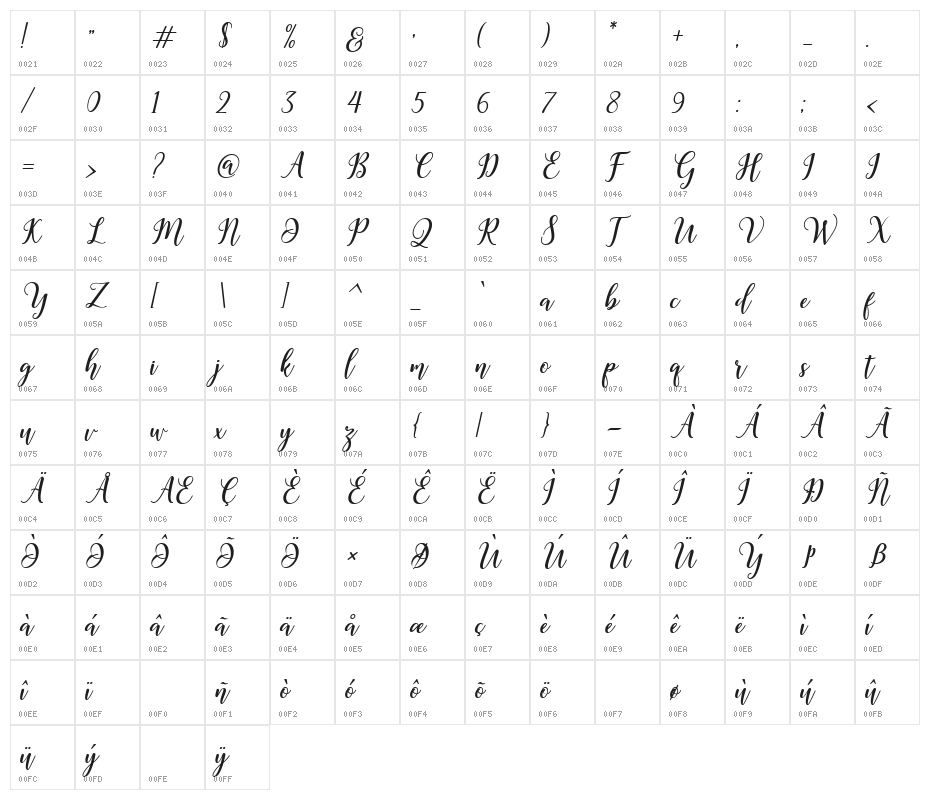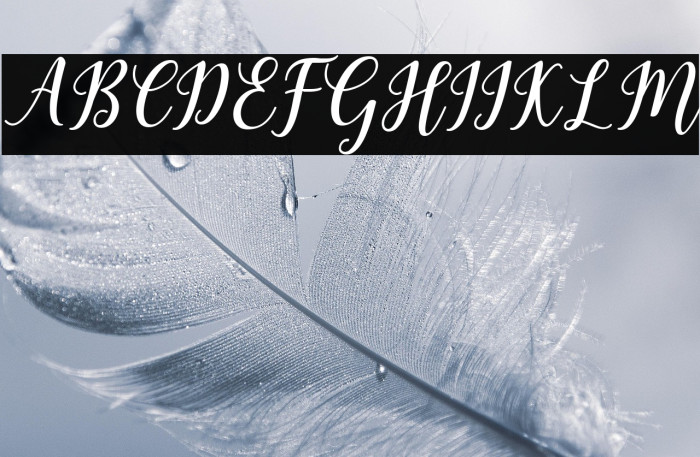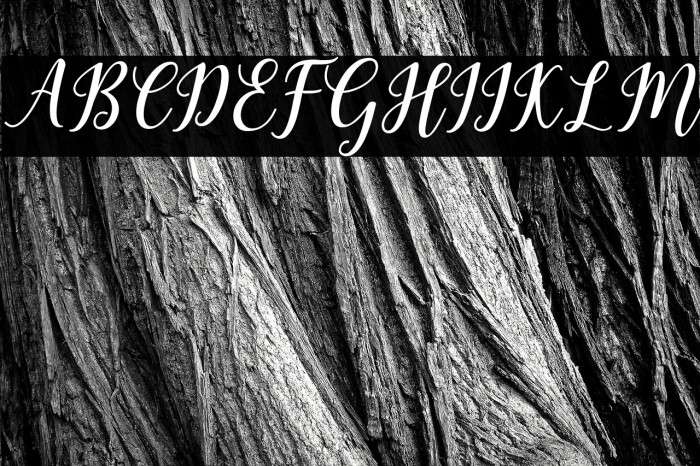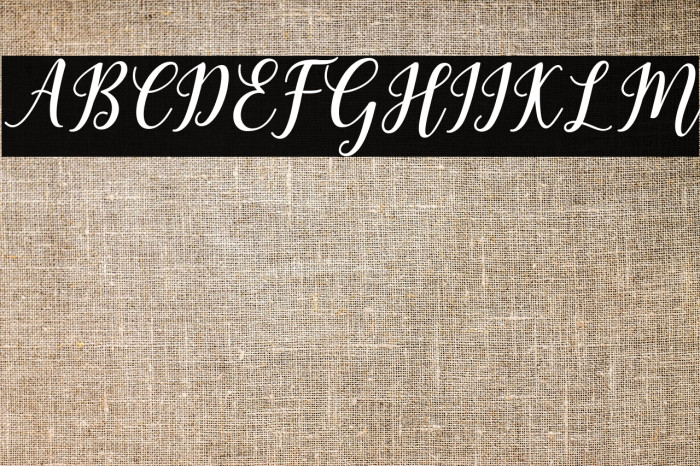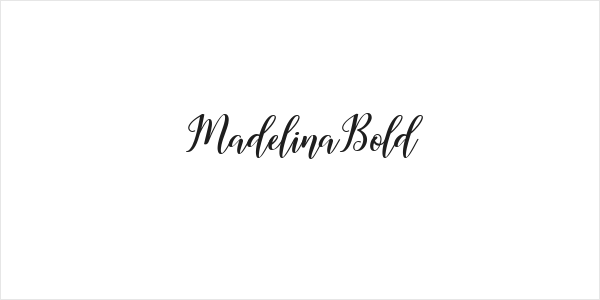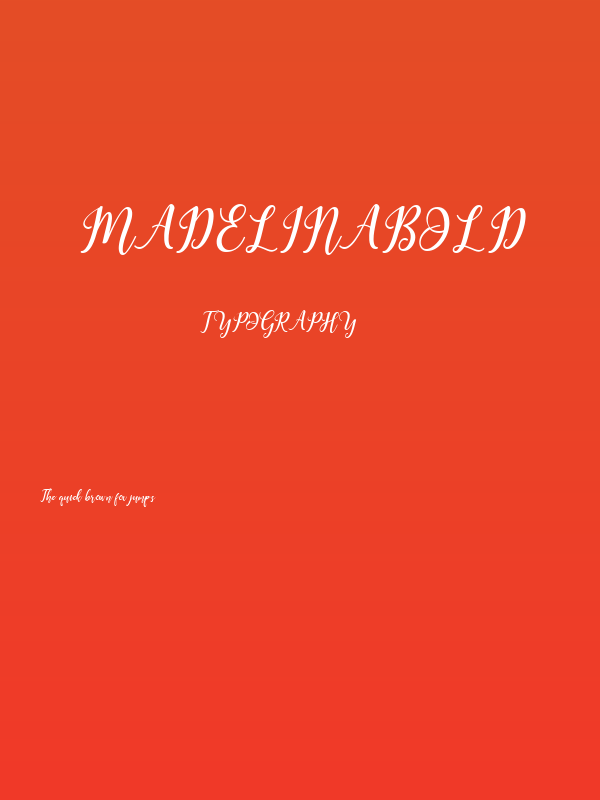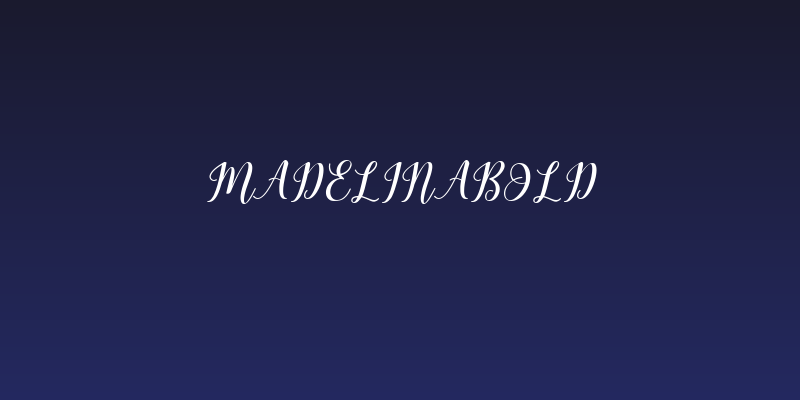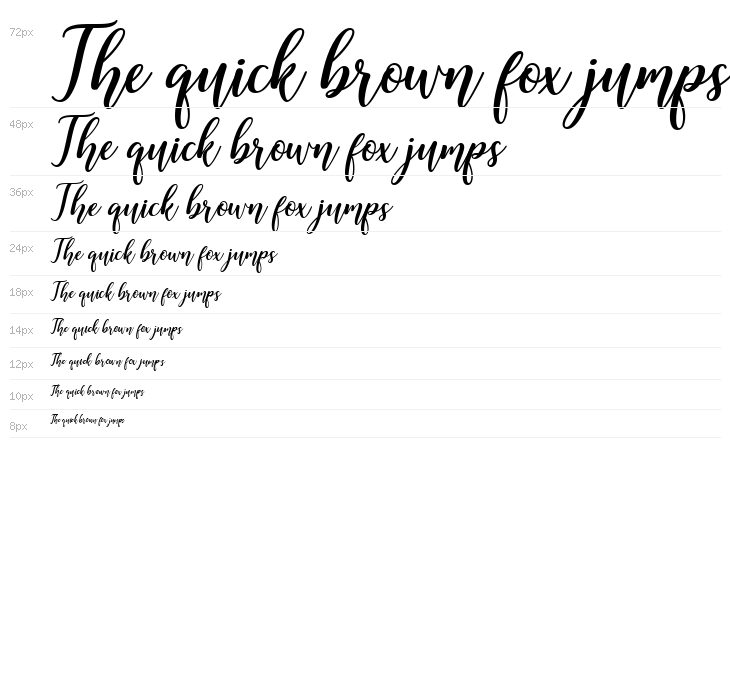
MadelinaBold Font
MadelinaBold Description
This elegant script font features fluid, cursive strokes that exude sophistication and grace. The uppercase letters are characterized by sweeping curves and delicate flourishes, while the lowercase letters maintain a consistent flow with a slightly more compact form. The numerals are styled to match the script's overall aesthetic, with smooth, rounded edges and a touch of flair. Special characters are seamlessly integrated, maintaining the font's cohesive look. This font is perfect for projects that require a touch of elegance and style, such as wedding invitations, branding, and upscale packaging.
| Overall Style | Elegant, Sophisticated |
| Proposed Projects | Ideal for wedding invitations, luxury branding, elegant packaging, and high-end product labels. |